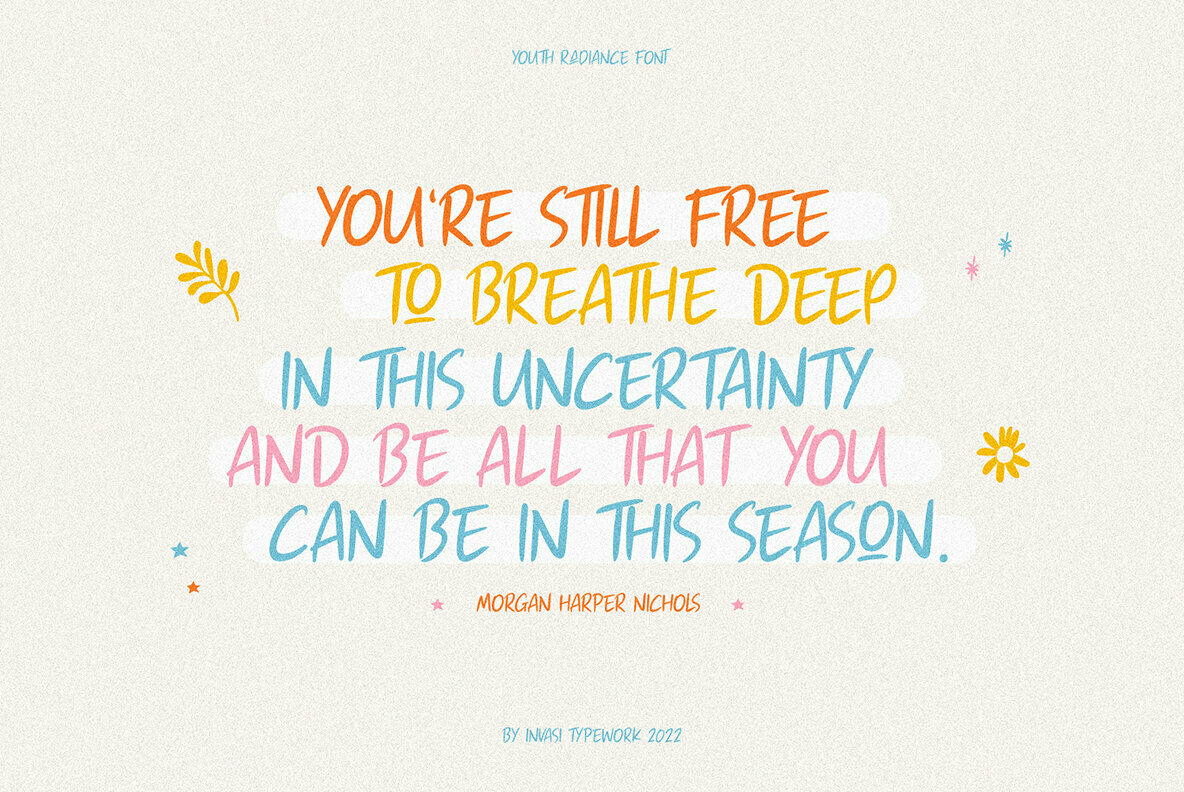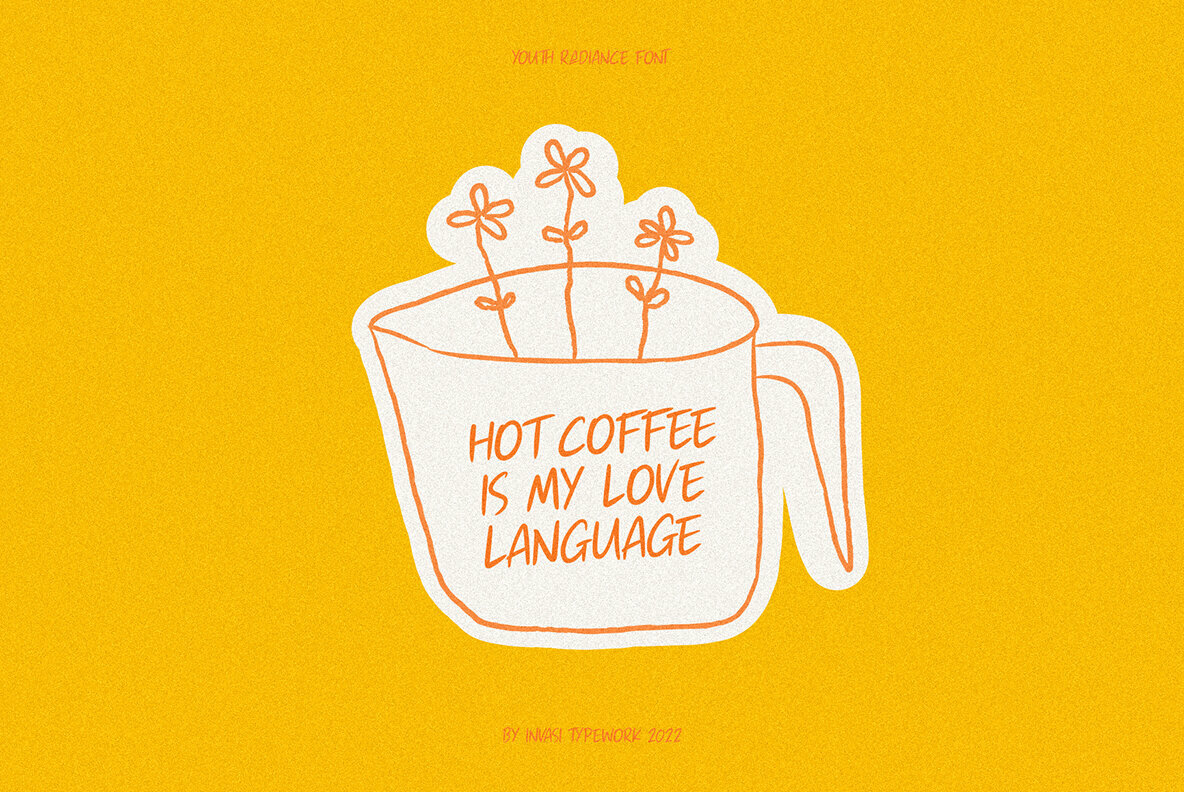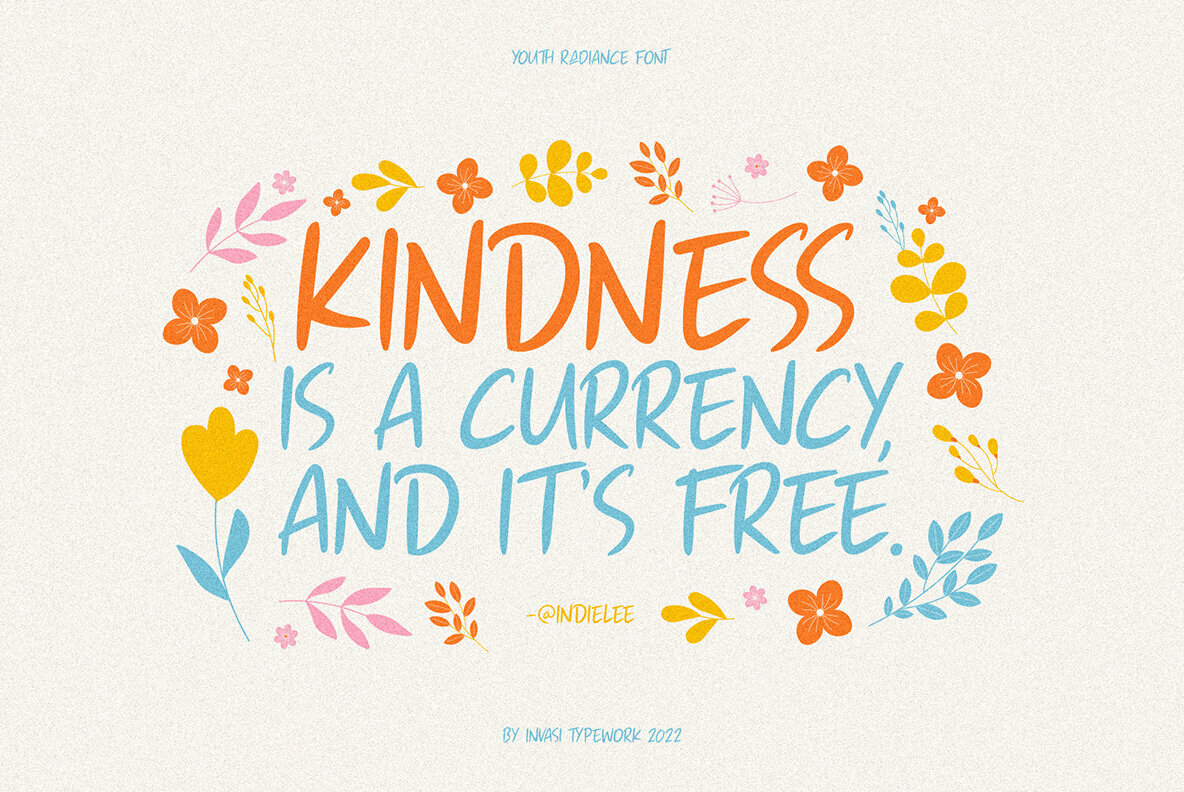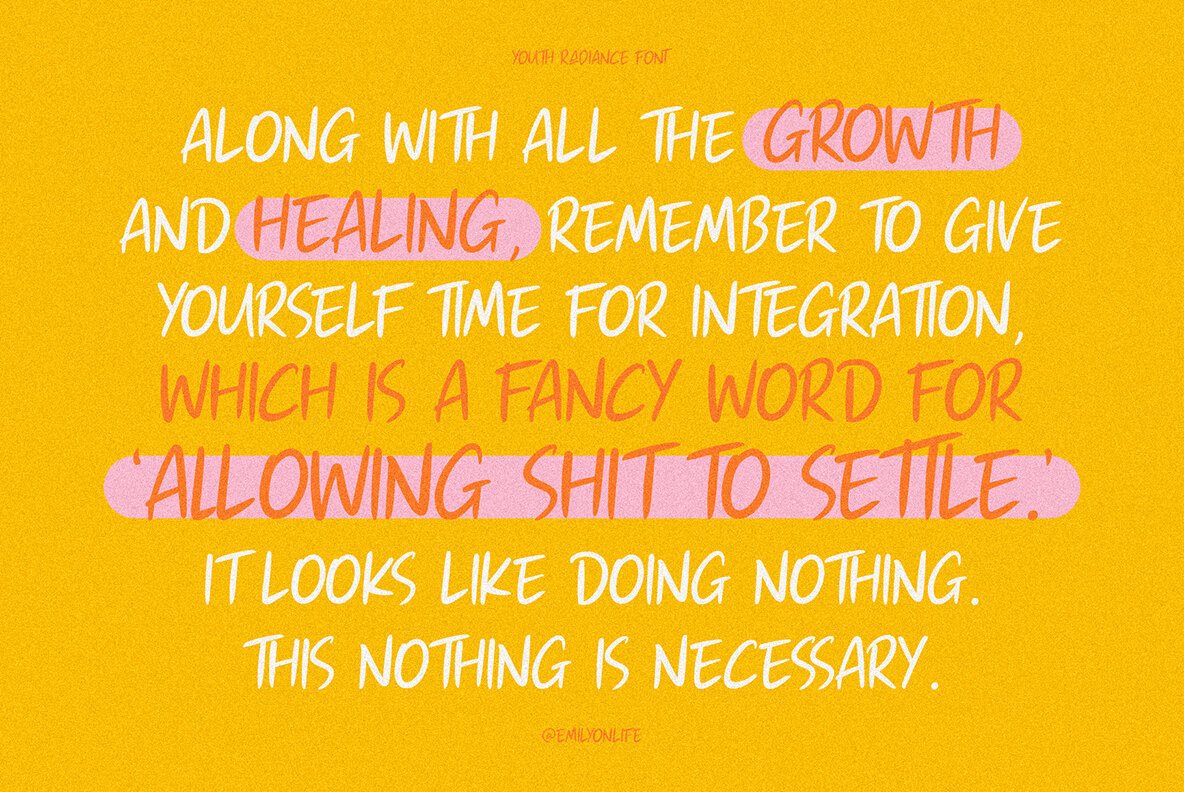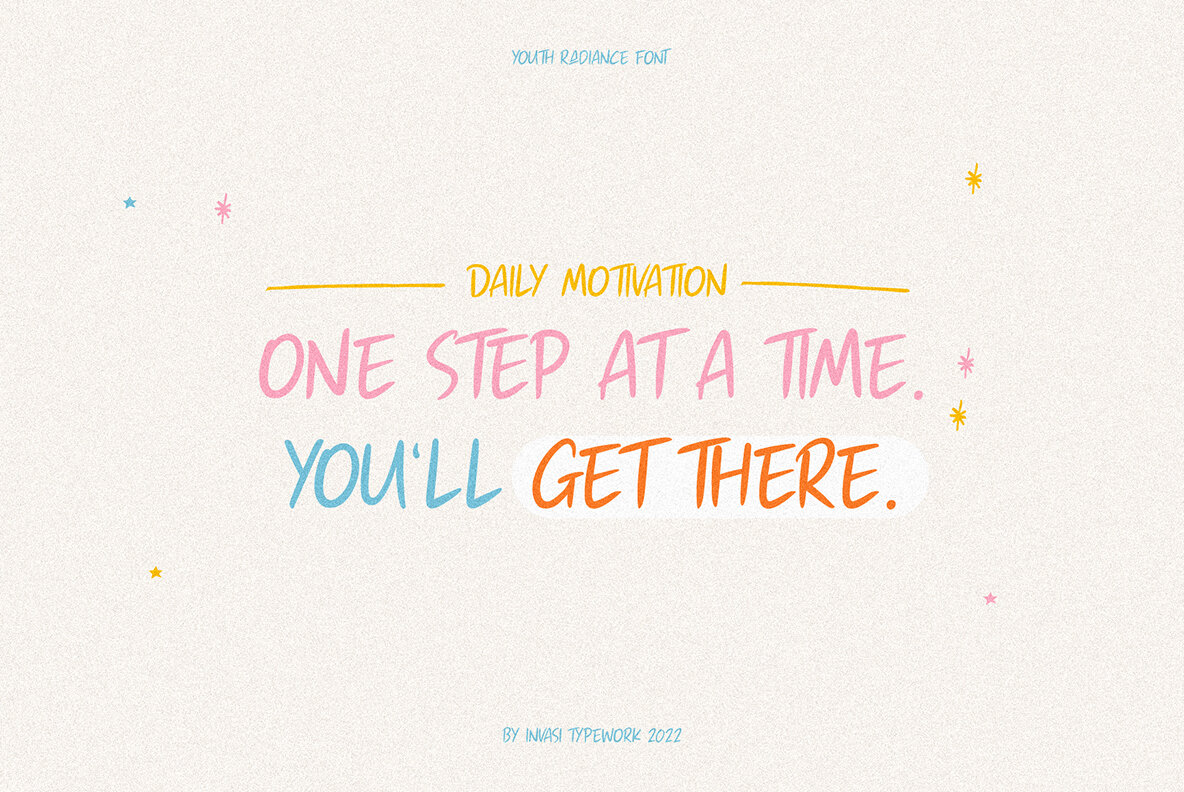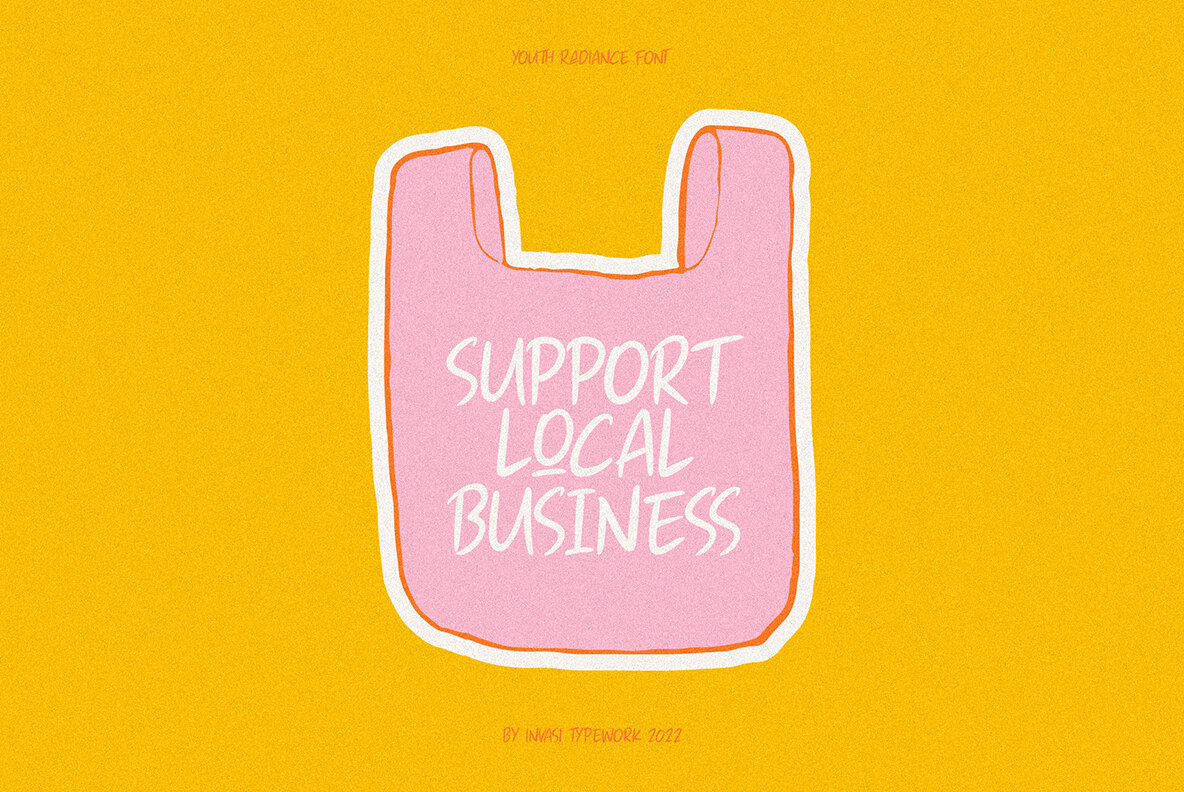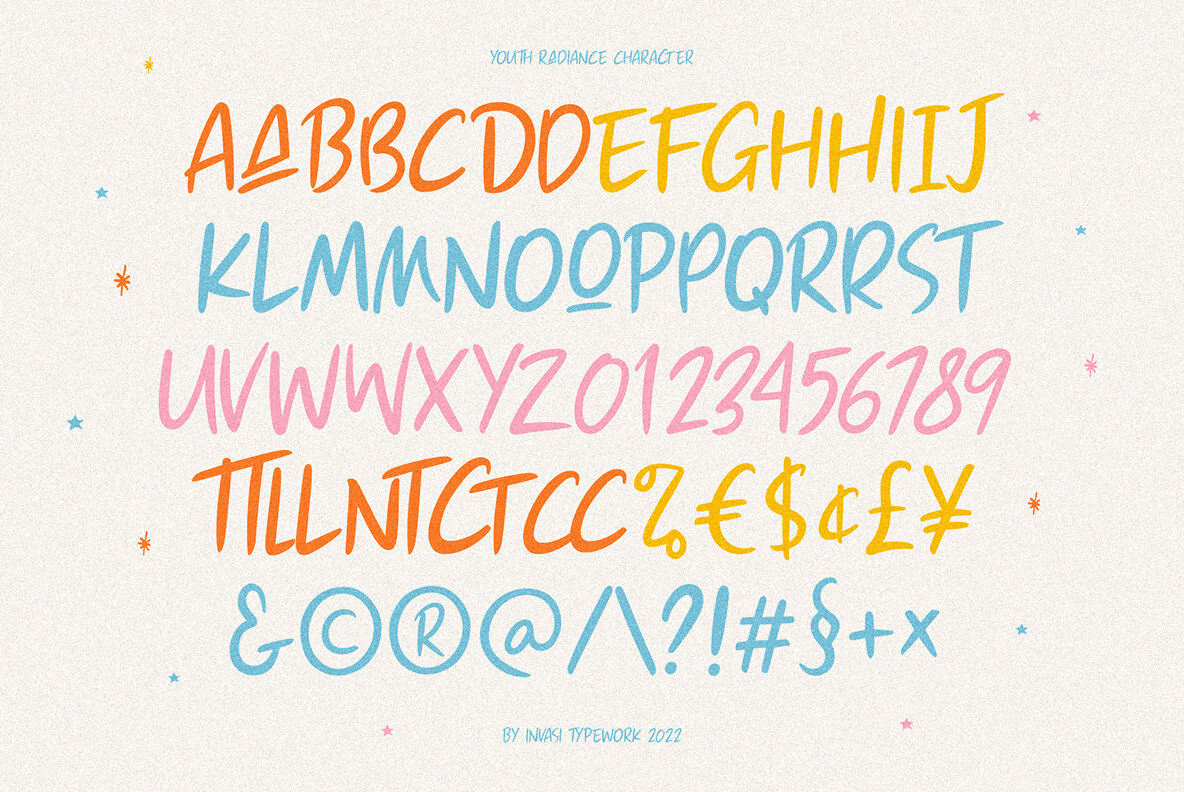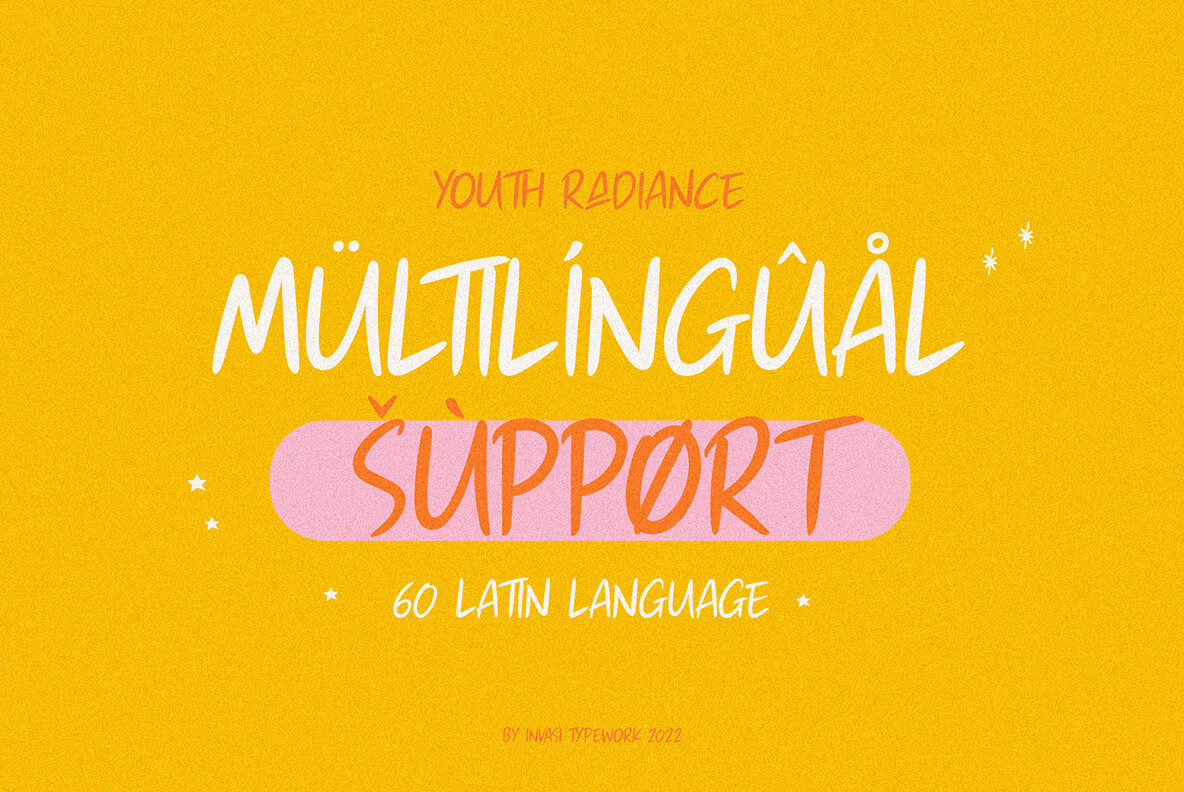
Youthful Radiance Font
Youthful Radiance Regular
The youthful radiance of this font is perfect for anything that needs an edgy, creative vibe. Try using it on greeting cards or book covers!
- Uppercase
- Numerals & Punctuation
- Alternates and Ligatures
- Multi-language Supports 60+ Latin based languages